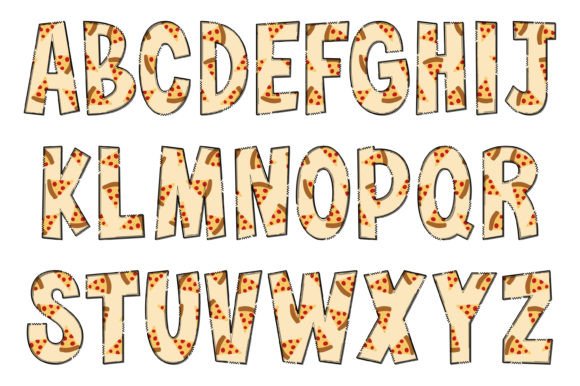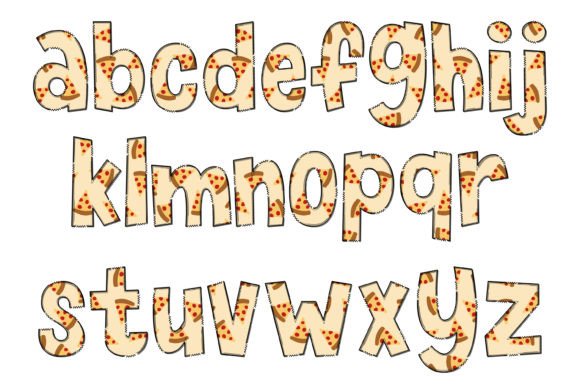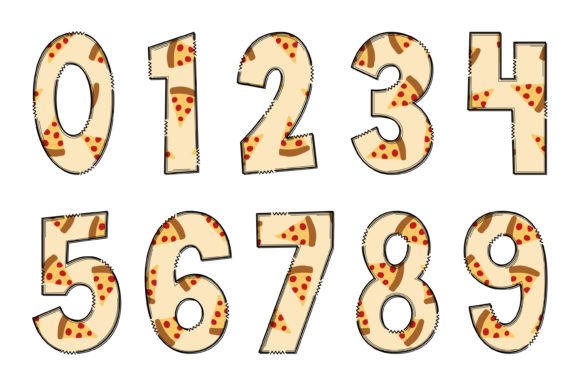
Introduction to Pizza Slice Font
Do you remember that moment when you stumbled upon the perfect font for a project, and suddenly, everything clicked? That’s exactly what happens when you discover the delightful Pizza Slice Font. As a designer, you’re always on the lookout for the perfect design resource to elevate your creative projects. Whether you’re working on a children’s book, a poster, or an invitation, the right font can make all the difference.
With its playful and artistic feel, the Pizza Slice Font is perfect for designers who want to add a touch of whimsy to their work. Available for free download, this high-quality font boasts a transparent background, making it easy to customize and pair with other design elements. Whether you’re working on a personal or professional project, the Pizza Slice Font is sure to bring a smile to your audience’s face.
Key Features of Pizza Slice Font
- High-quality design resource ideal for creative projects, including graphics, logos, and digital art.
- Unique, hand-drawn design that adds a personal touch to any creative project, making it stand out from the crowd.
Honest Review: Pizza Slice Font
I recently stumbled upon the Pizza Slice Font, a design resource that caught my attention. This font is a great addition to any creative project, especially when you’re looking to add a playful touch. The font is available for a free download, which is a major plus for designers working on a budget.
The font itself is of high quality, with a transparent background that makes it easy to overlay on different backgrounds. The design is quite unique, with a fun and quirky vibe that’s perfect for projects that need a bit of personality.
- Unique design that adds a playful touch to any project
- High-quality font with a transparent background
- May not be suitable for formal or professional projects
- Some users may find the font a bit too quirky or overwhelming
Overall, I’m quite impressed with the Pizza Slice Font. It’s a great resource for designers who want to add a bit of fun and personality to their projects. While it may not be suitable for every project, it’s definitely worth checking out if you’re looking for a unique and high-quality font.
Pizza Slice Font
Pizza Slice Font is a free design resource ideal for creative projects that require a unique, eye-catching font. This high-quality font features a transparent background, making it easy to customize and integrate into various designs.
Tips for Getting the Most Out of Pizza Slice Font
For the best results, use Pizza Slice Font in conjunction with other creative elements to create a visually appealing design. Experiment with different font sizes, colors, and arrangements to find the perfect combination for your project.
Common Use Cases for Pizza Slice Font
Pizza Slice Font is ideal for use in food-related designs, such as menus, labels, and advertisements. It can also be used in creative projects, such as posters, flyers, and social media graphics.